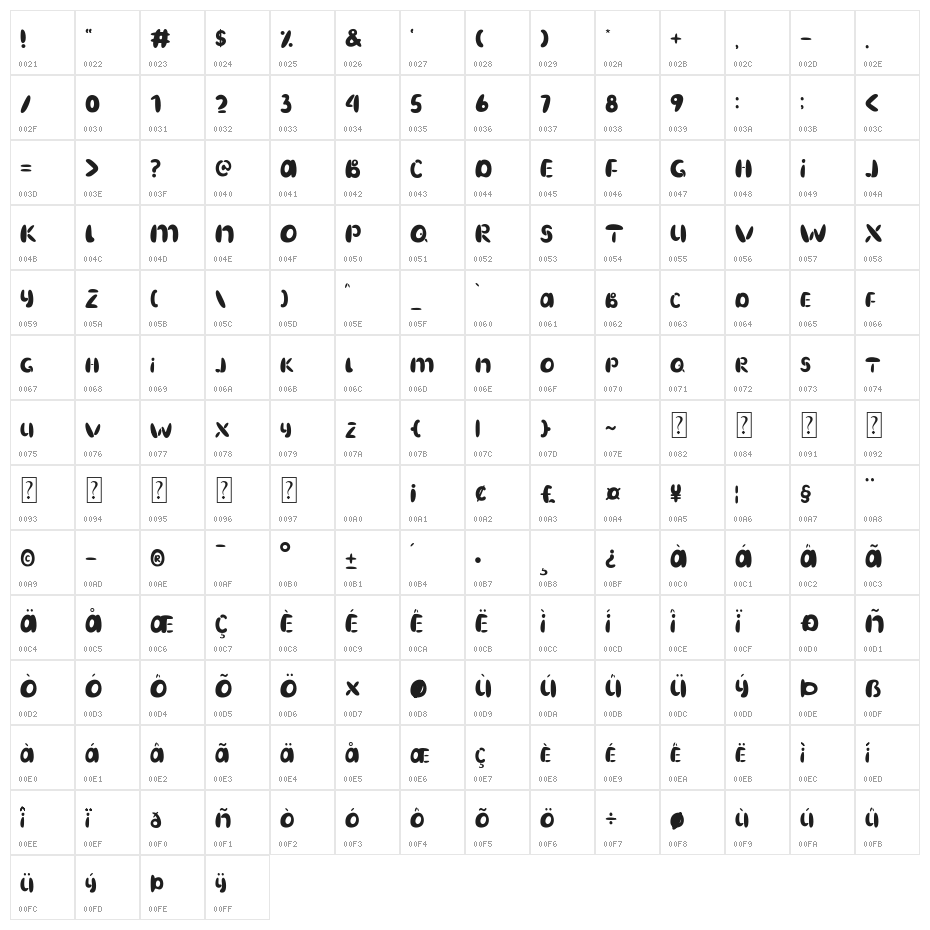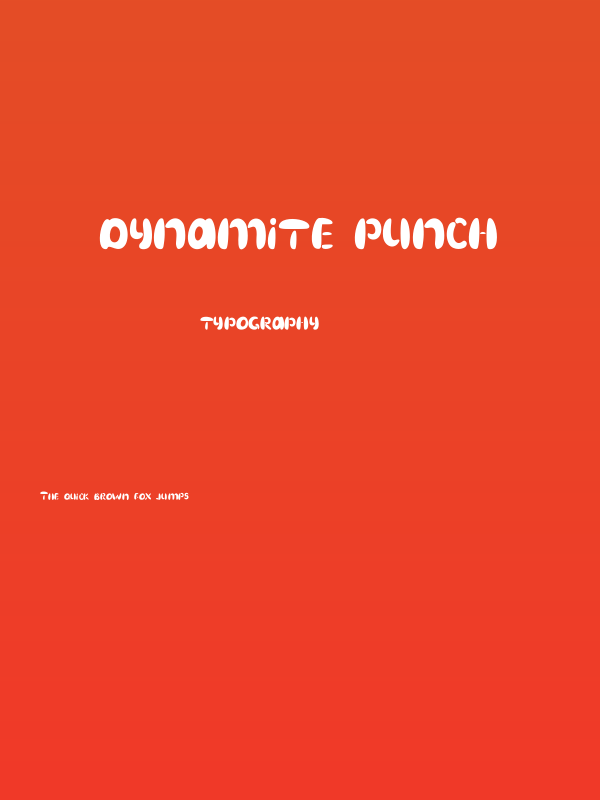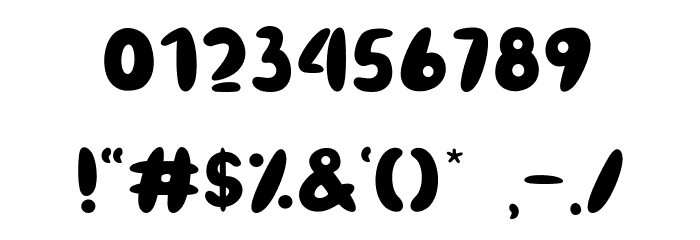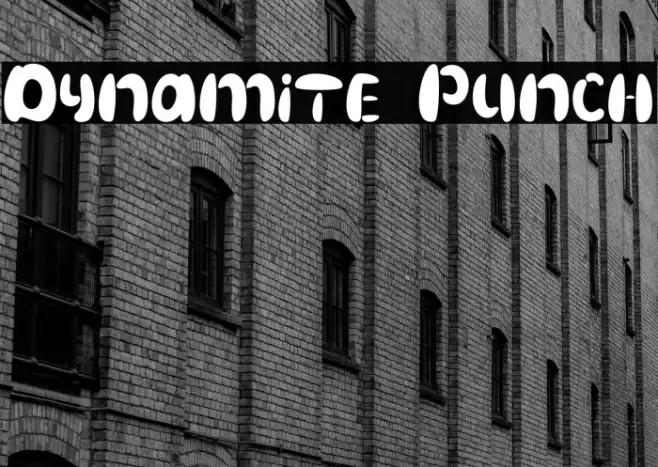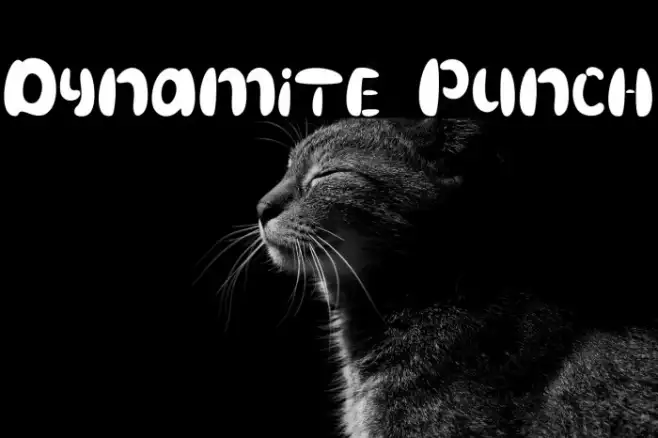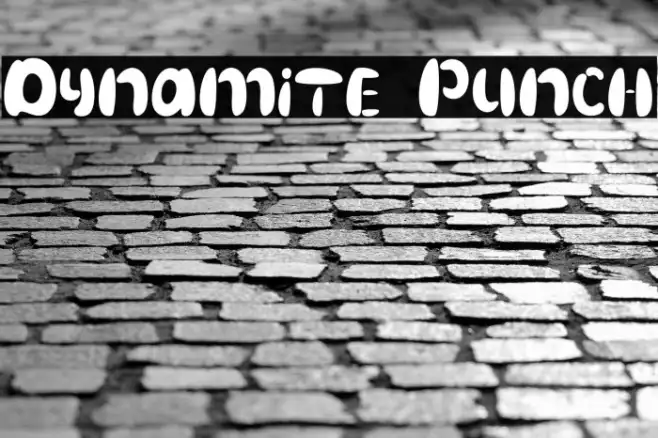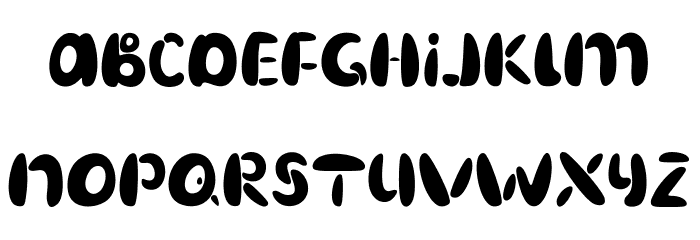
Dynamite Punch Font
Dynamite Punch Description
This font features a bold and playful design with rounded, bubble-like characters that convey a sense of fun and energy. The letters are thick and substantial, with a consistent stroke width that gives them a solid appearance. The overall style is reminiscent of retro or comic book aesthetics, making it ideal for projects that require a lively and dynamic feel. The characters are slightly condensed, which adds to the compact and robust look of the font. Special characters and numbers maintain the same playful style, ensuring consistency across all text elements.
| Overall Style | Playful, Retro |
| Proposed Projects | Perfect for children's books, comic strips, playful branding, and event posters. |